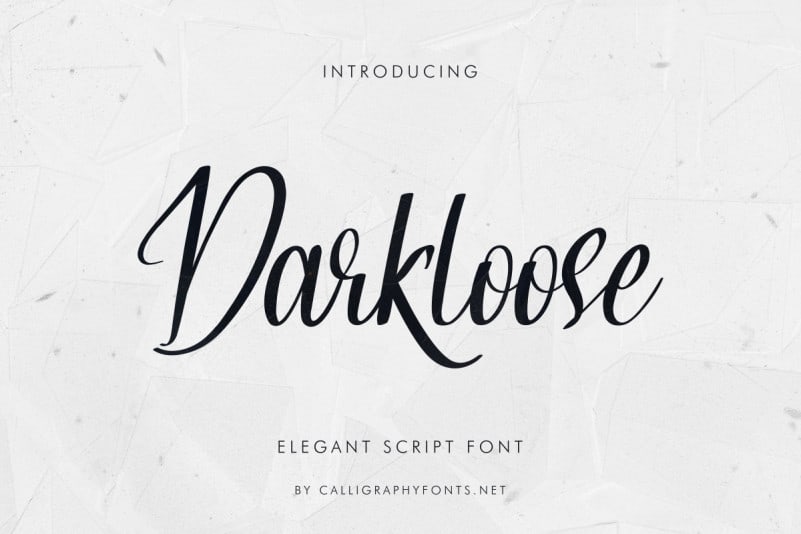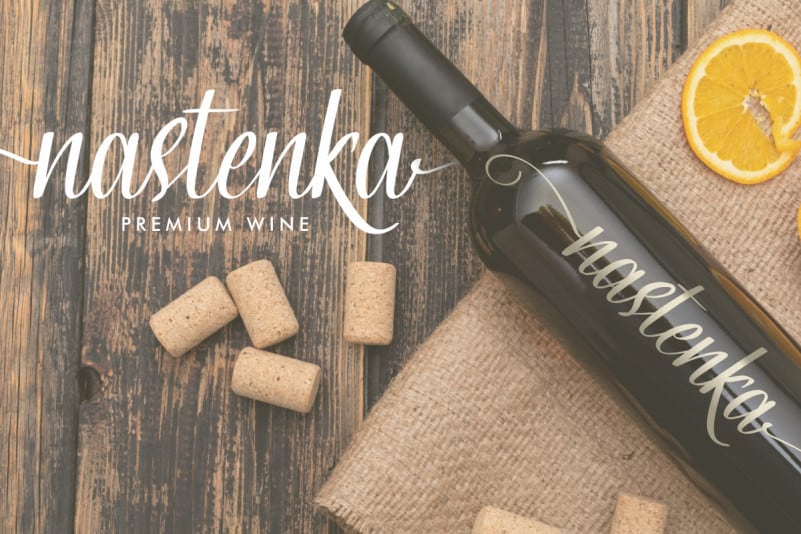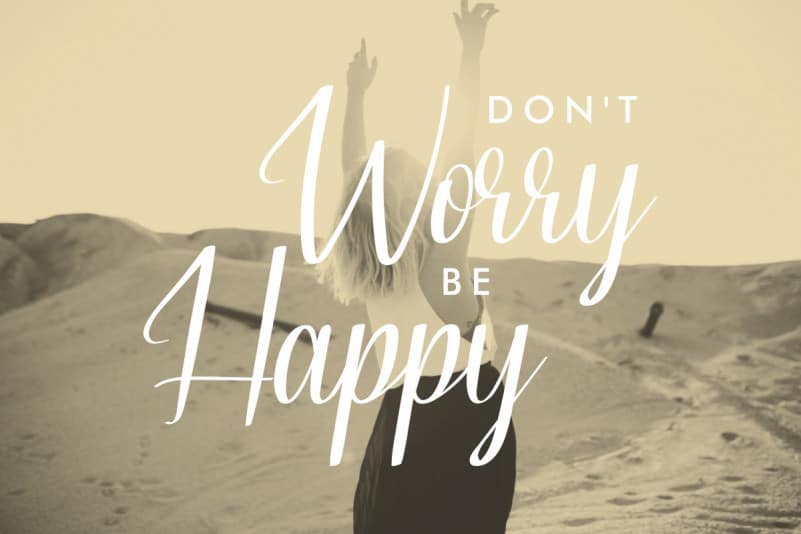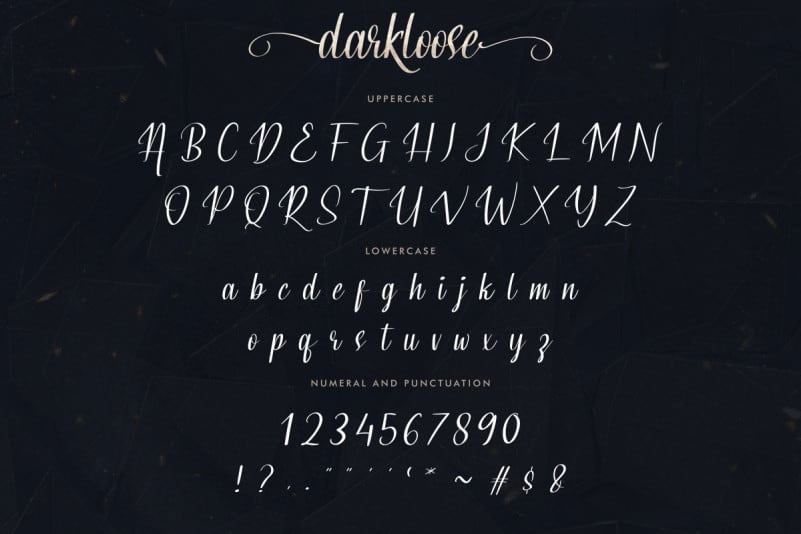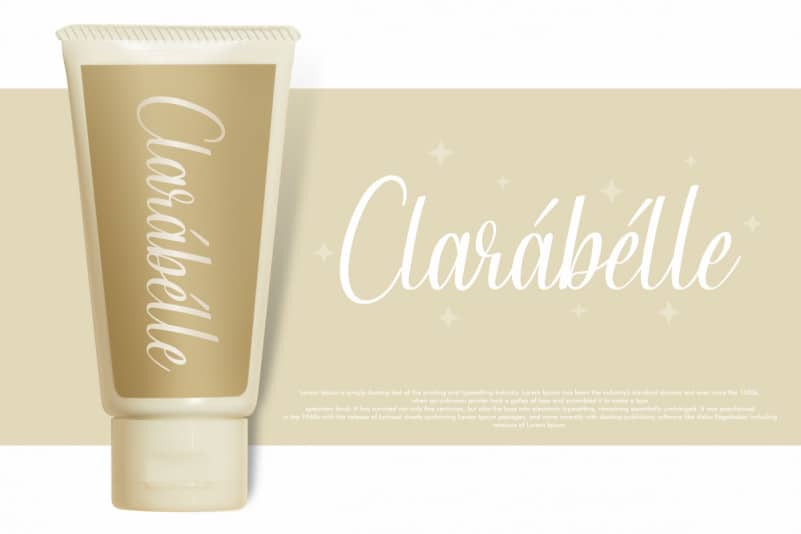
Darkloose Calligraphy Script Font
Darkloose Calligraphy Script Font is a Calligraphy script font. The style of this font are elegant, luxury, glamour, modern and sophisticated brush pen.